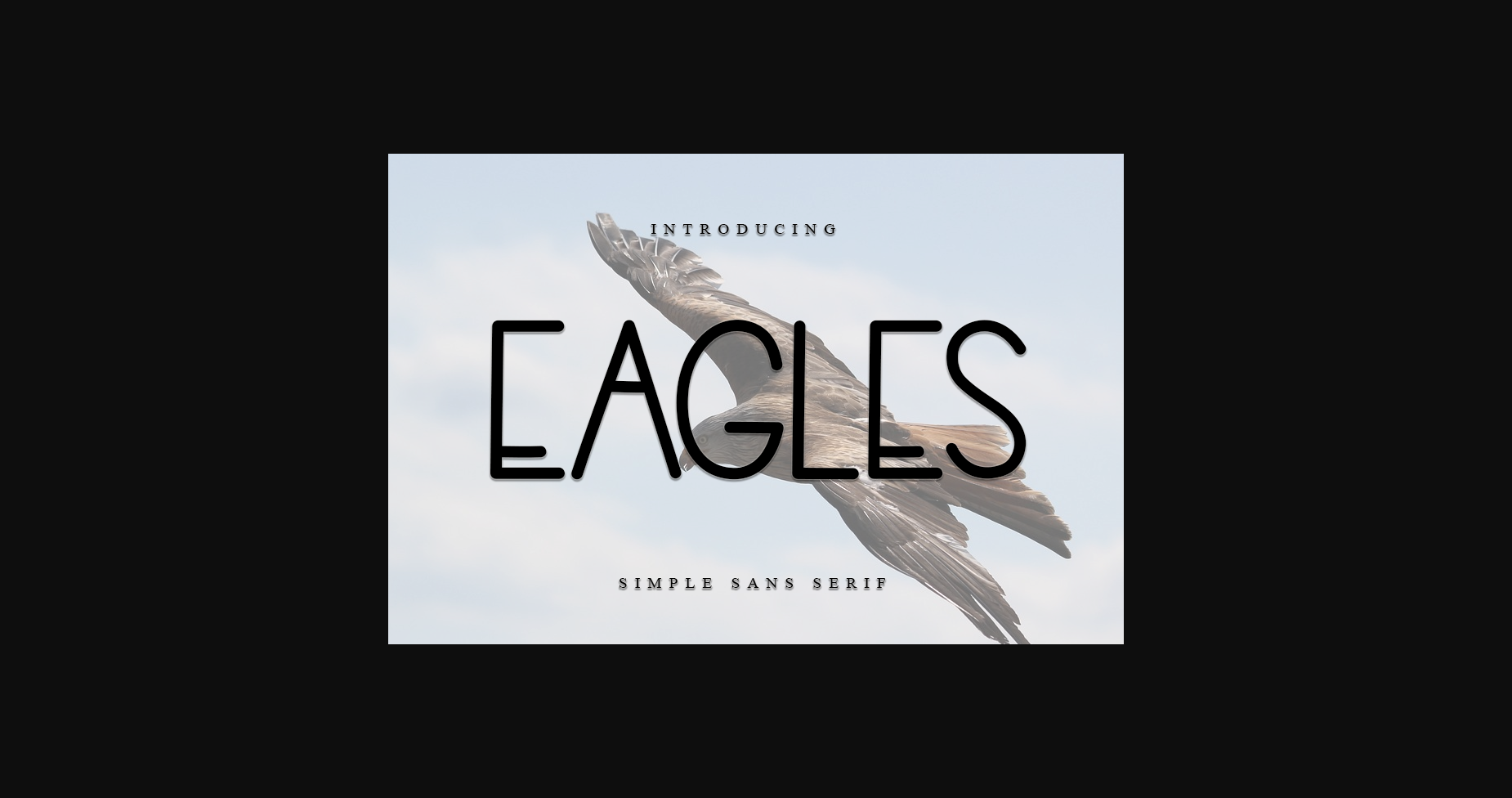
About Eagles Font
Eagles is a cool and modern Sans serif font. Whether you’re using it for crafts, digital design, presentations, or creating greeting cards, this font has the potential to become your go-to font, whatever the occasion.